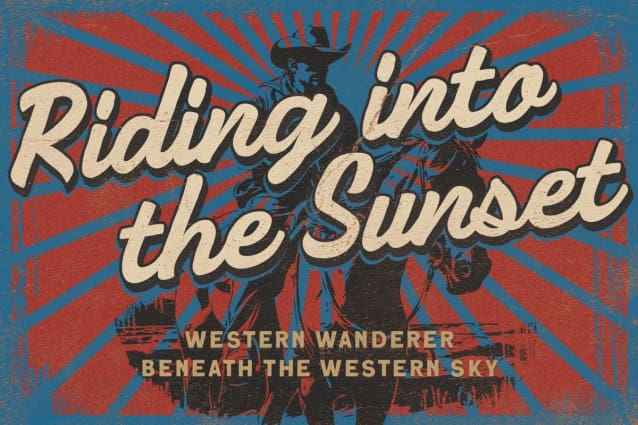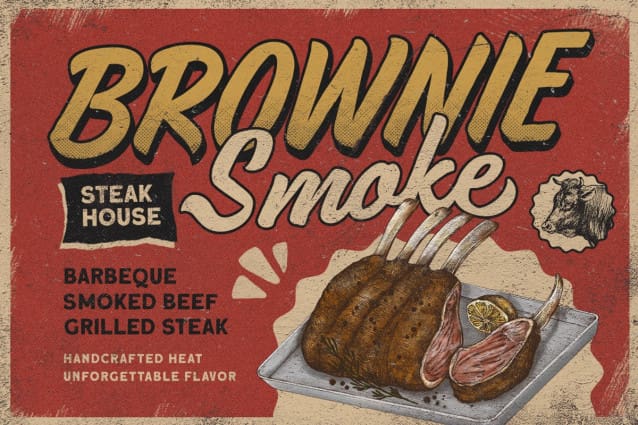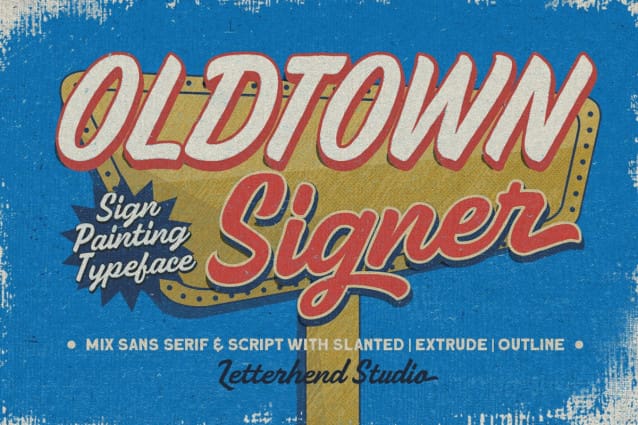
Oldtown Signer Font
Oldtown Signer Font is a sign painting typeface with handcrafted that will bring you back to 60s feel. The swashes makes this font looks great for retro lettering which you can create in a sec! This font perfectly made to be applied especially in logo, and the other various formal forms such as invitations, labels, logos, magazines, books, greeting / wedding cards, packaging, fashion, make up, stationery, novels, labels or any type of advertising purpose.